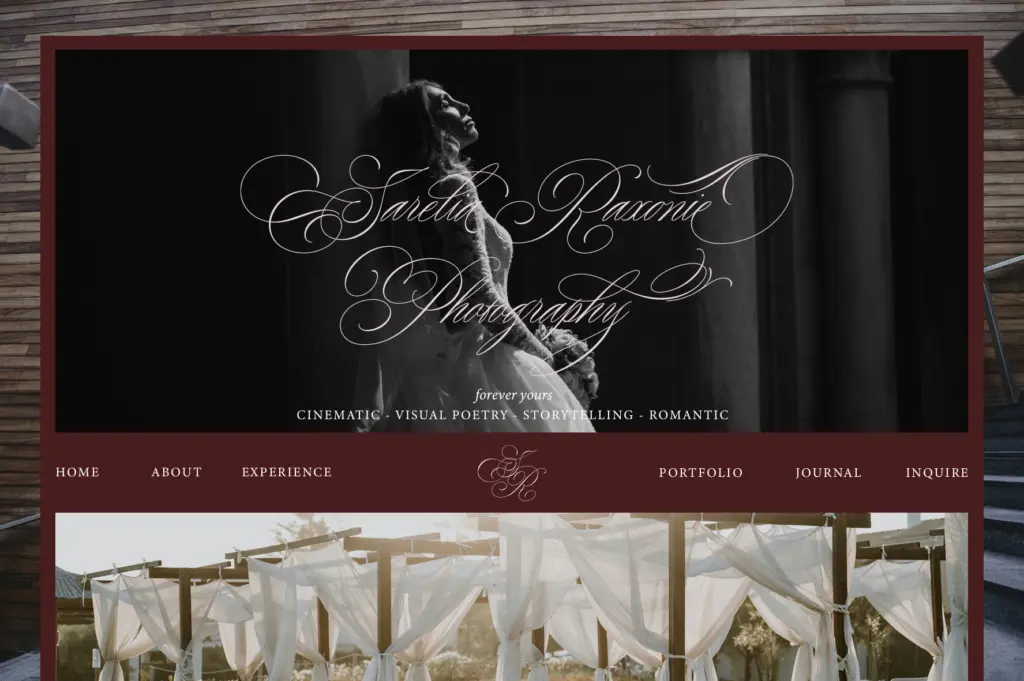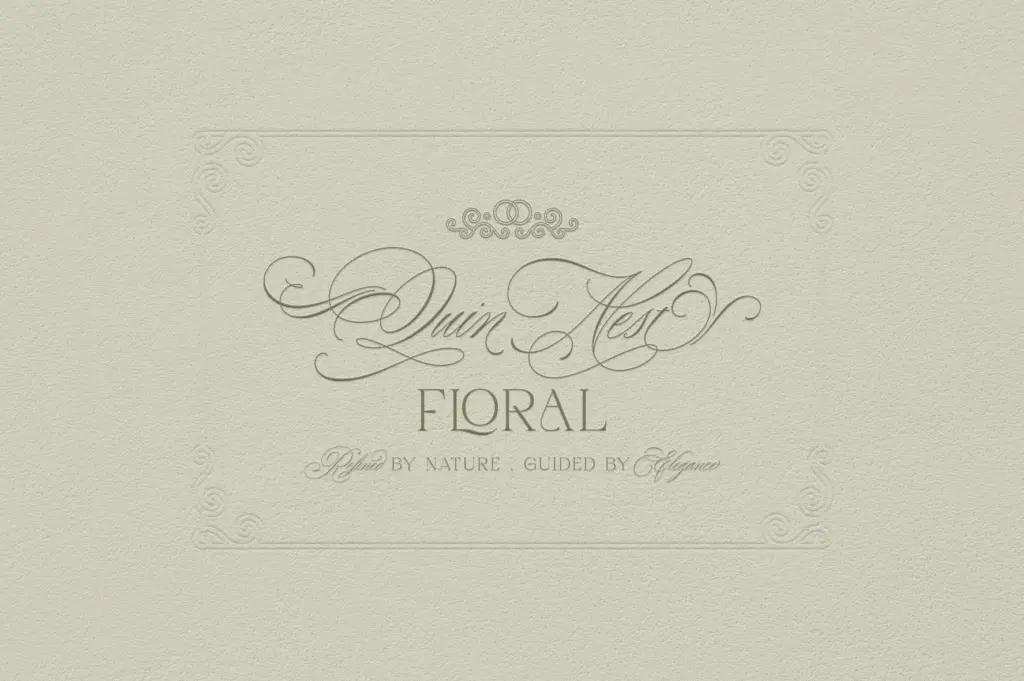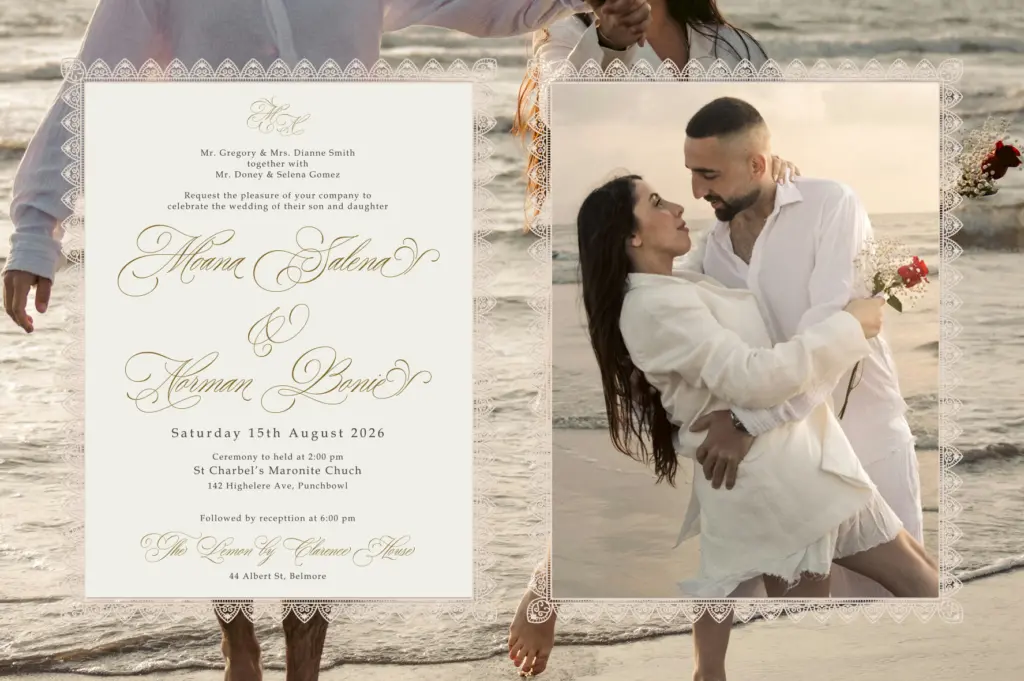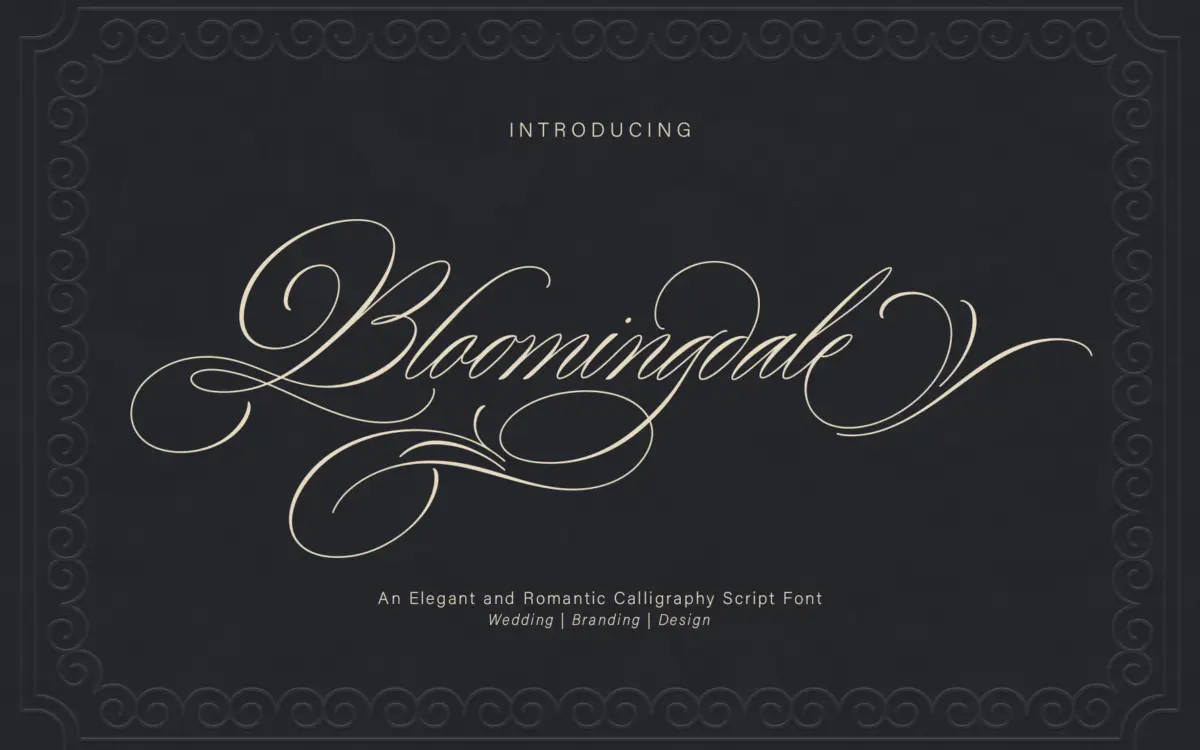
Bloomingdale sits in the crowded field of connected scripts modelled on brush and pointed-pen handwriting, with a fairly relaxed slant and moderate contrast between thick downstrokes and thin connectors. It reads as friendly rather than formal, closer to a casual signature than a formal invitation script, though the two uppercase styles give it a bit more range than a single-mood font. The joins are handled with reasonable care, letters flow into one another without the awkward collisions that plague a lot of marketplace scripts, but this is a font built for decoration and personality first, structural elegance second.
The swash capitals are the most distinctive part of the design, looping well beyond the baseline and x-height in a way that demands space around them. Used sparingly, at the start of a word or on a single initial, they work. Used across a whole line of caps, the design gets busy fast. That’s a trade-off worth knowing about going in rather than discovering after you’ve set a full headline.
The advertised 600-plus glyph count is where Bloomingdale earns its keep. Multiple stylistic sets, contextual alternates, and PUA Unicode coding mean the alphabet isn’t fixed to one shape per letter — repeated letters in a word can pick up different forms automatically in an OpenType-aware app, which is the whole point of a script like this: it’s meant to look hand-lettered rather than mechanically repeated. If you’re working in Illustrator, InDesign, or recent Word with OpenType support, this is straightforward to access through the glyphs or alternates panel. If you’re stuck with an app that doesn’t support OpenType features, you’ll be manually pulling characters from Character Map or Font Book, which is workable but tedious for anything longer than a short phrase or name.
International language and symbol support is mentioned in the spec sheet, along with full punctuation and numerals, though as with any decorative script, expect the numerals and symbols to be serviceable rather than a design highlight — the letters are where the effort clearly went.
Bloomingdale is built for short-form, high-decoration work: wedding invitations, greeting cards, logotypes, quote cards, packaging accents, the kind of setting where a handful of words carry the whole visual weight of the piece. It is not a font for paragraphs or body copy — legibility drops off quickly once you’re past a headline or a signature-length phrase, which is true of nearly every connected script but worth stating plainly here given how ornate the swashes get.
For logo and branding work, the alternate character sets are genuinely useful, letting you tune a wordmark’s connections and swash placement rather than settling for whatever the default draw gives you. Pair it with a plain sans or a restrained serif for supporting text, and keep it out of small print, dense signage, or anywhere it needs to compete with a lot of surrounding visual noise.
- Extensive stylistic sets and contextual alternates give real variation across repeated letters
- Two uppercase styles offer more flexibility than most single-mood scripts
- PUA Unicode coding makes alternates accessible even without full OpenType support
- Ornate swash capitals get visually noisy fast if overused across a full line
- Not suited to anything beyond short phrases — legibility drops quickly at length
Bloomingdale is a competent connected script with a genuinely deep alternate character set that rewards designers willing to dig into OpenType panels. It's built for short-form decorative work and struggles the moment you ask it to do more than a headline or a name.